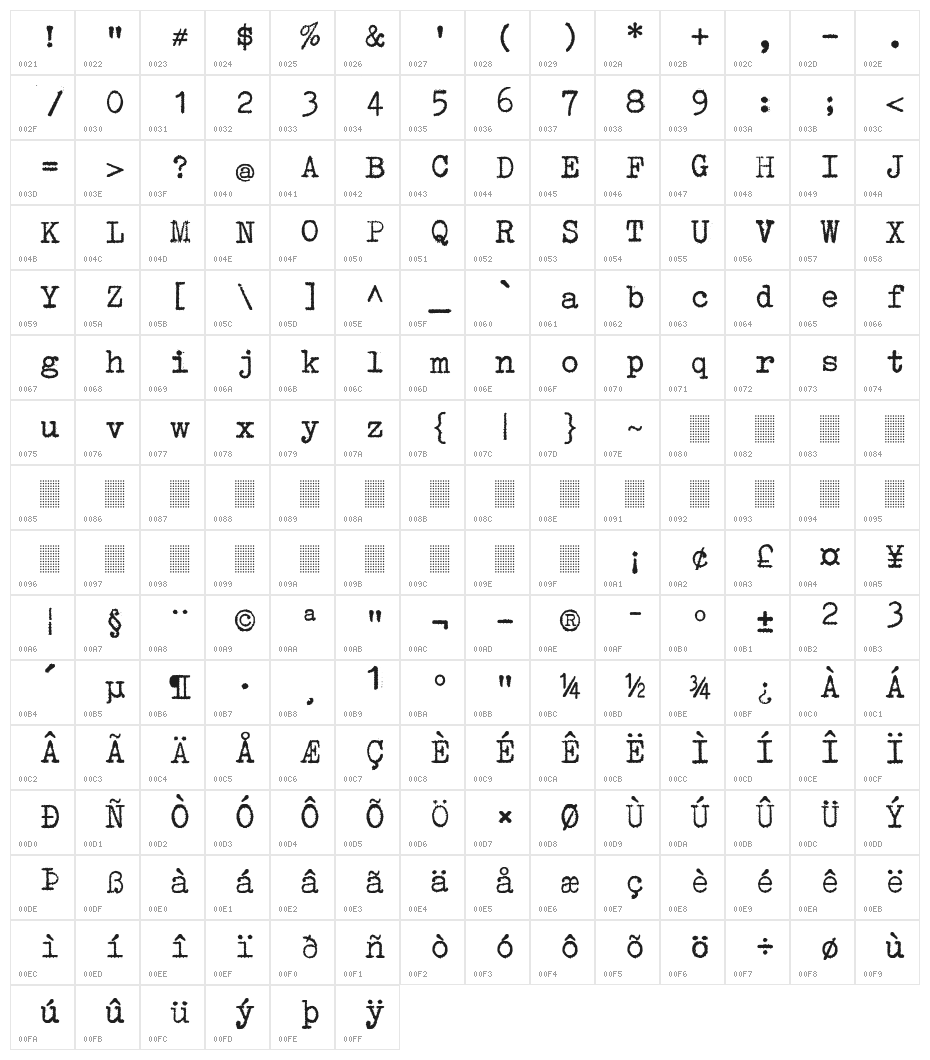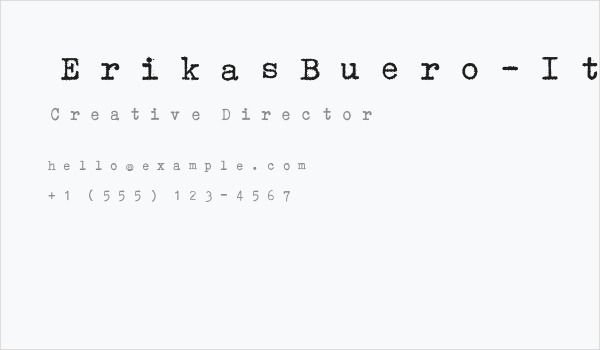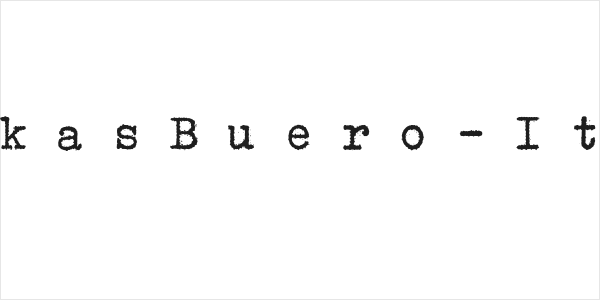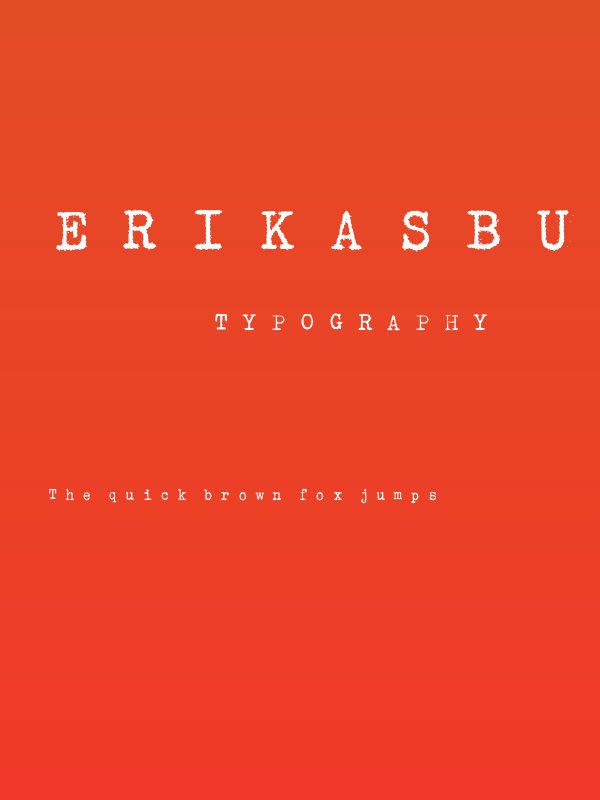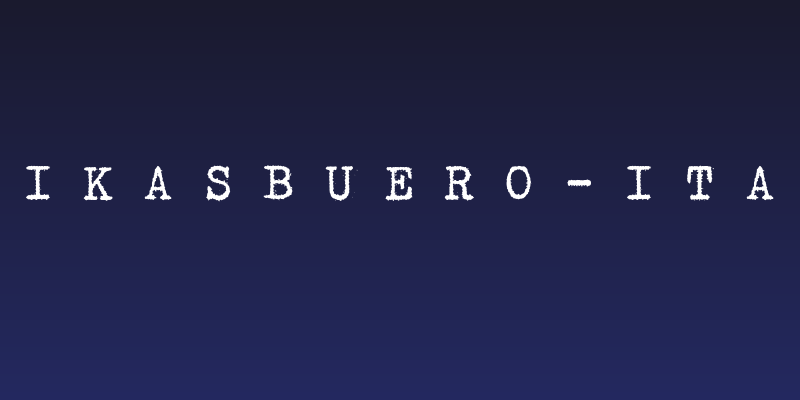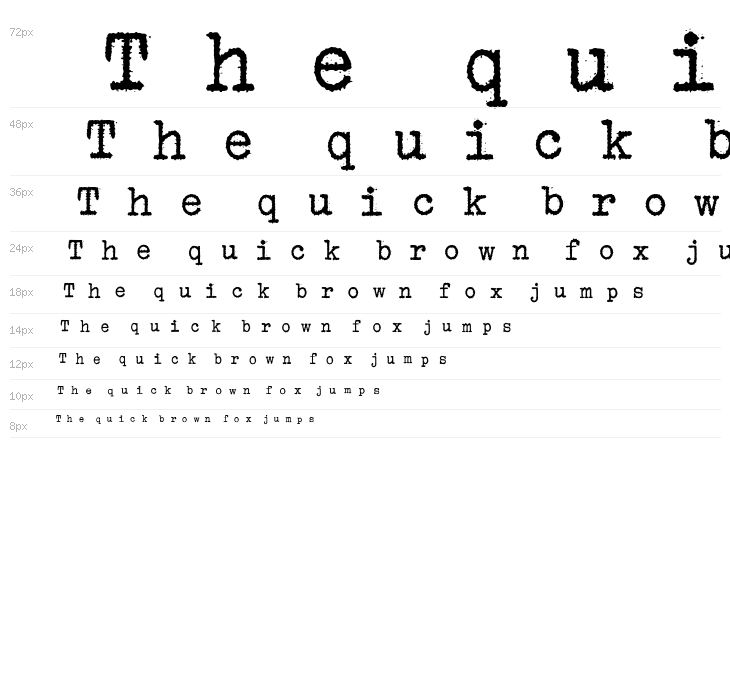
ErikasBuero-Italic Font
ErikasBuero-Italic Description
This typeface exudes a vintage, typewriter-inspired aesthetic with a slightly distressed appearance, giving it a unique, nostalgic charm. The characters are monospaced, providing a uniform and orderly look. Each letter has a subtle irregularity, adding to its handcrafted feel. The uppercase and lowercase letters maintain a consistent style, with rounded edges and a slightly uneven baseline, enhancing its retro appeal. The numerals and special characters follow the same design principles, ensuring a cohesive look across all glyphs. This font is ideal for projects that require a touch of old-world charm and authenticity.